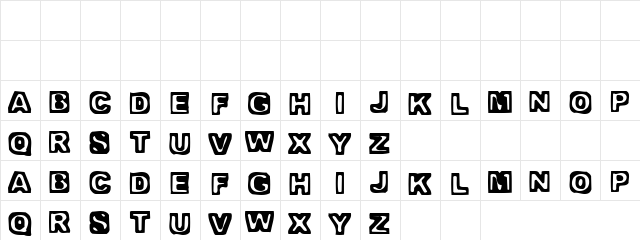
Complete Trapped Heavy glyph index. Displaying only characters natively supported by Trapped Heavy font.
Trapped is a composed and adaptable typeface that performs quietly and consistently across a wide range of design contexts.